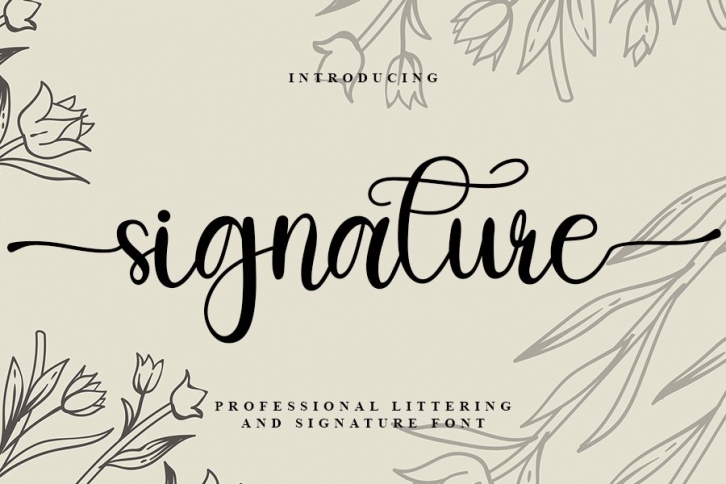
Signature is a trendy and unique font with an authentic style. It was designed by FreshType INK and it's a great choice for creative people who need such a font. It was released on June 20, 2021 and the file size is 10.64 MB. Signature will add an organic vibe to any design idea!